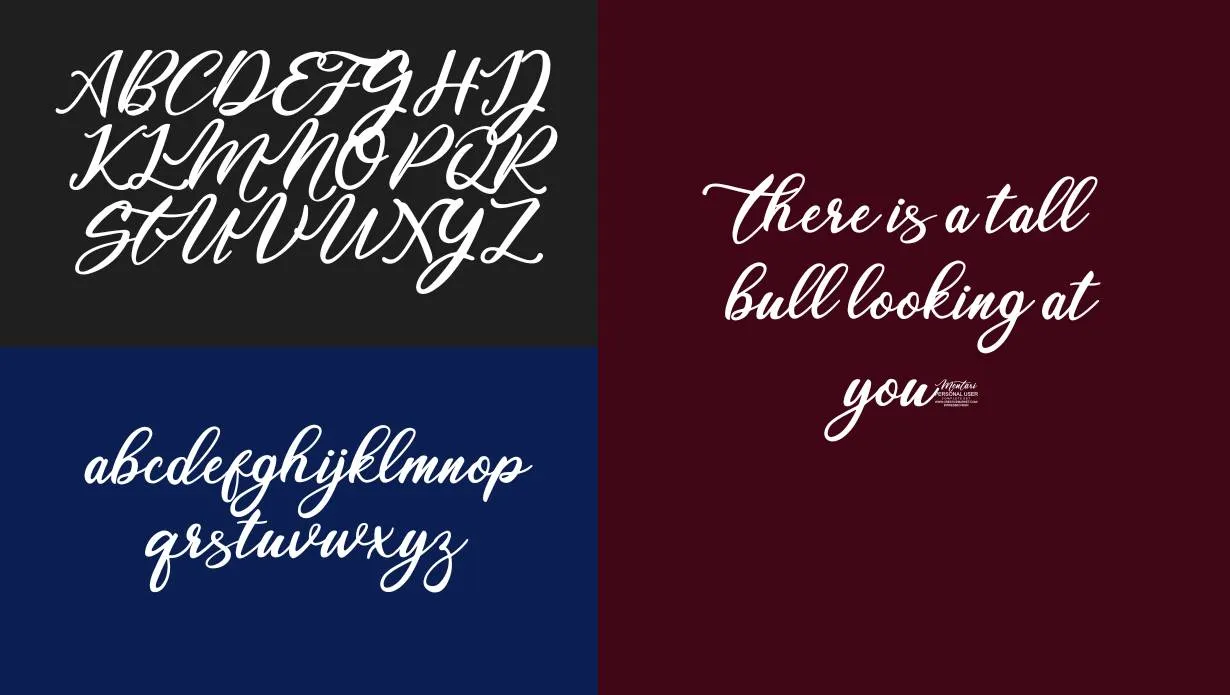
The Mentari font is an innovative and stylish typeface utilized in designs that strive for a bold and impactful appearance. Its clean and sharp characters make it perfect for communicating a fashionable and modern vibe.
This font is often used in logos, headlines, or modern branding. The weight of Mentari font is usually bold, ensuring a commanding and attention-grabbing presence.
| Name | Mentari Font |
| Designer | Adil Budianto |
Its width is relatively standard, making it ideal for larger text applications, like titles or headings in various design contexts.